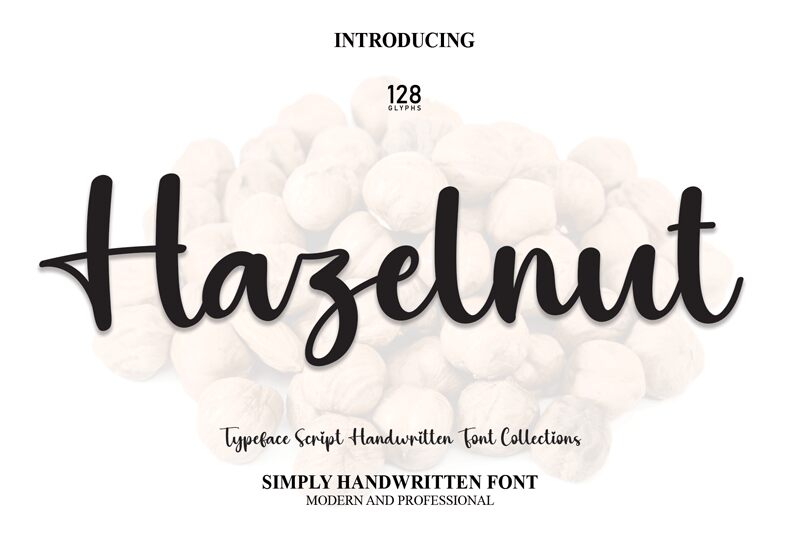
Hazelnut
Hazelnut, a captivating calligraphy font crafted by Scratchones, adds a touch of elegance and sophistication to any design project.
With its gracefully flowing curves and delicate strokes, this typeface is perfect for wedding invitations, greeting cards, and luxurious branding materials. Hazelnut's timeless beauty effortlessly captures the essence of romance and refinement. Its versatility extends to fashion magazines, high-end websites, and art galleries' logos.
Whether used for elegant typography or adding a touch of class to digital displays, Hazelnut guarantees to leave a lasting impression on your audience.
With its gracefully flowing curves and delicate strokes, this typeface is perfect for wedding invitations, greeting cards, and luxurious branding materials. Hazelnut's timeless beauty effortlessly captures the essence of romance and refinement. Its versatility extends to fashion magazines, high-end websites, and art galleries' logos.
Whether used for elegant typography or adding a touch of class to digital displays, Hazelnut guarantees to leave a lasting impression on your audience.